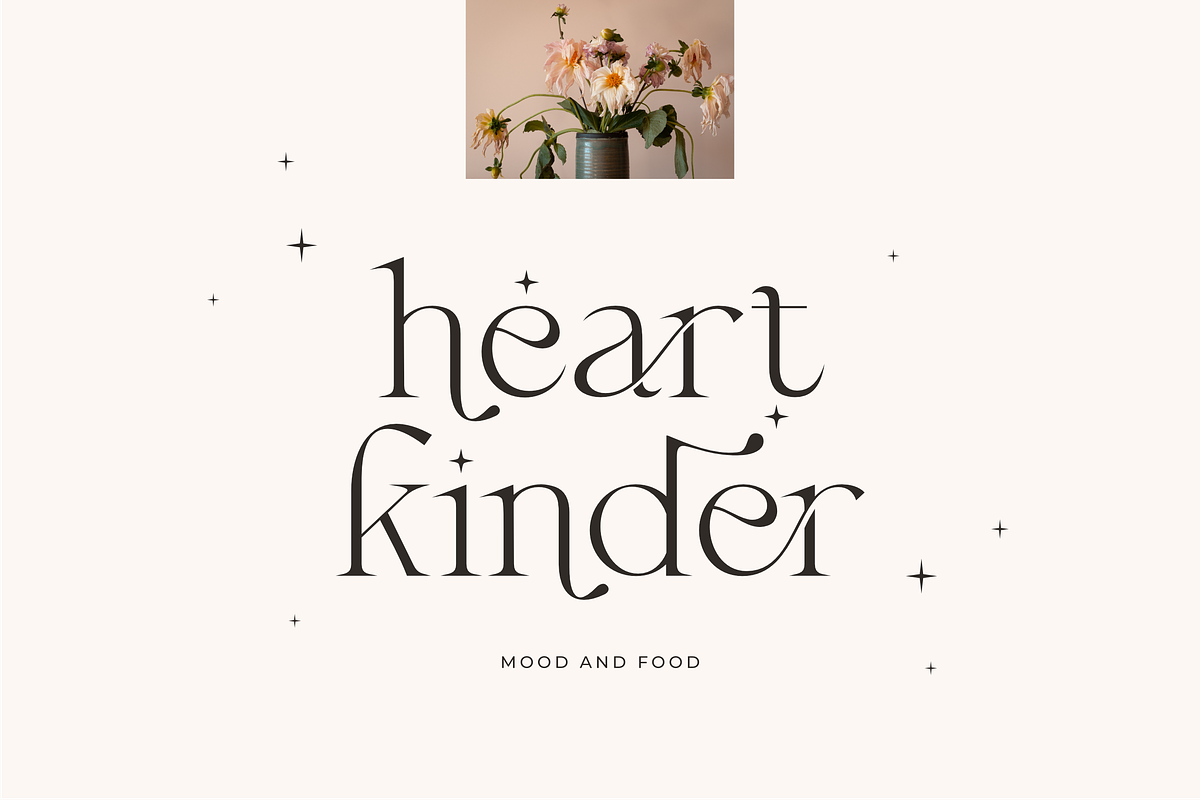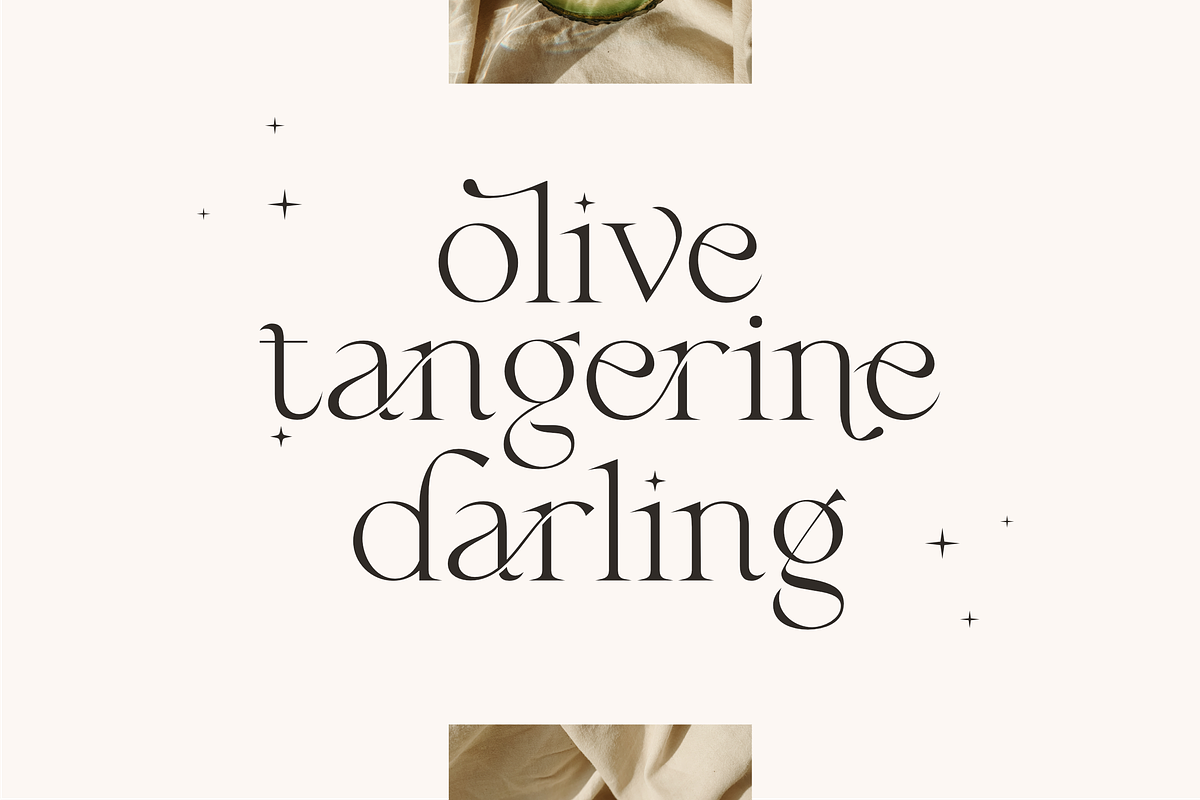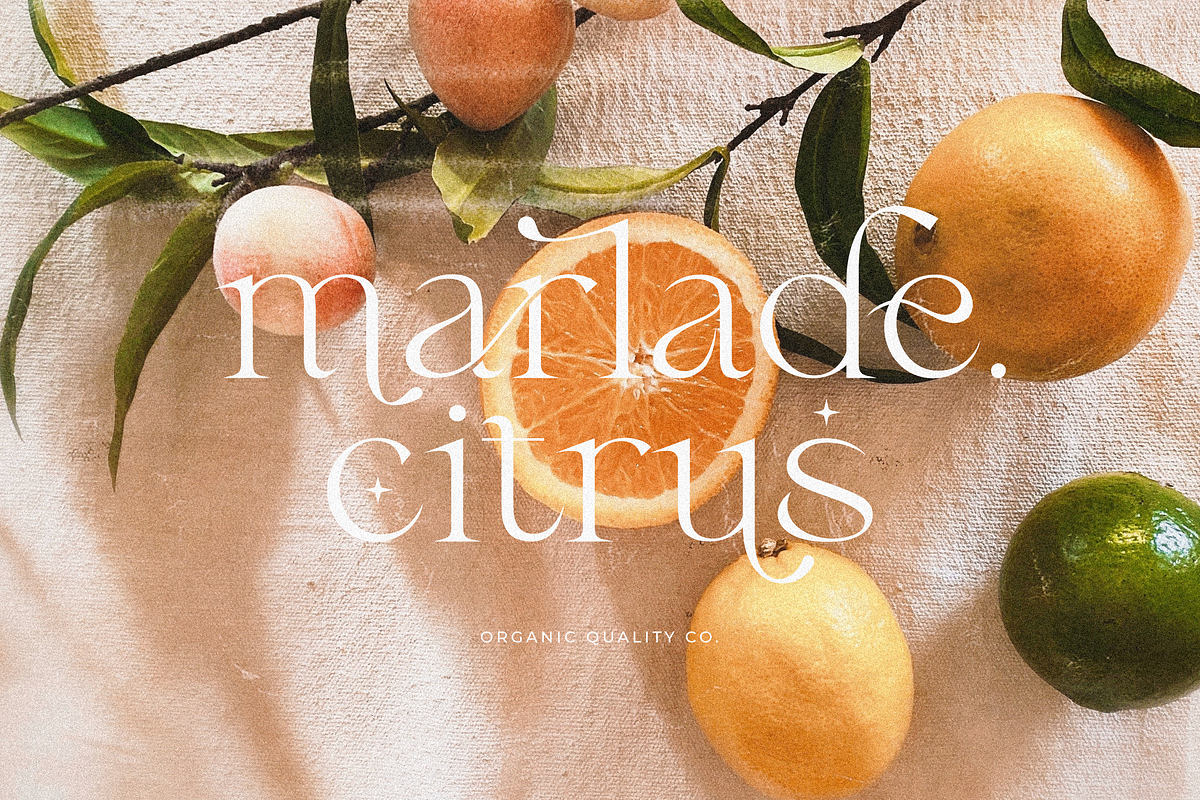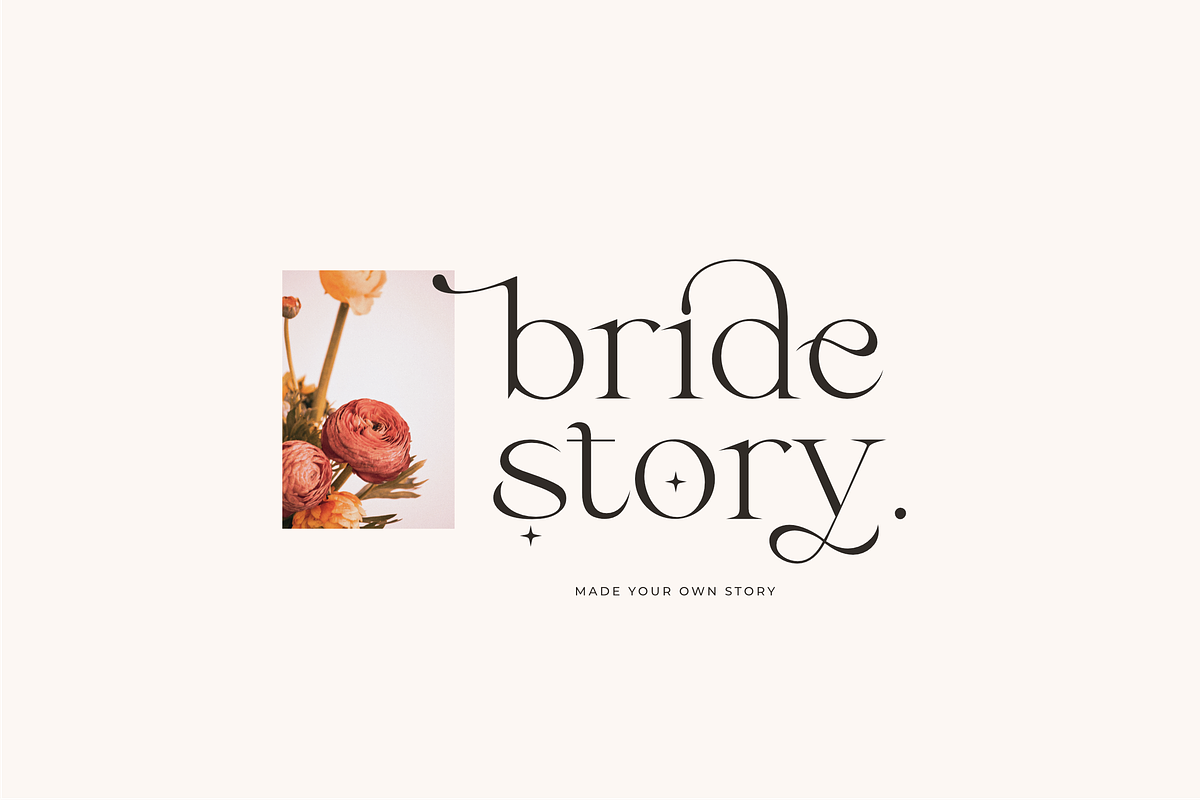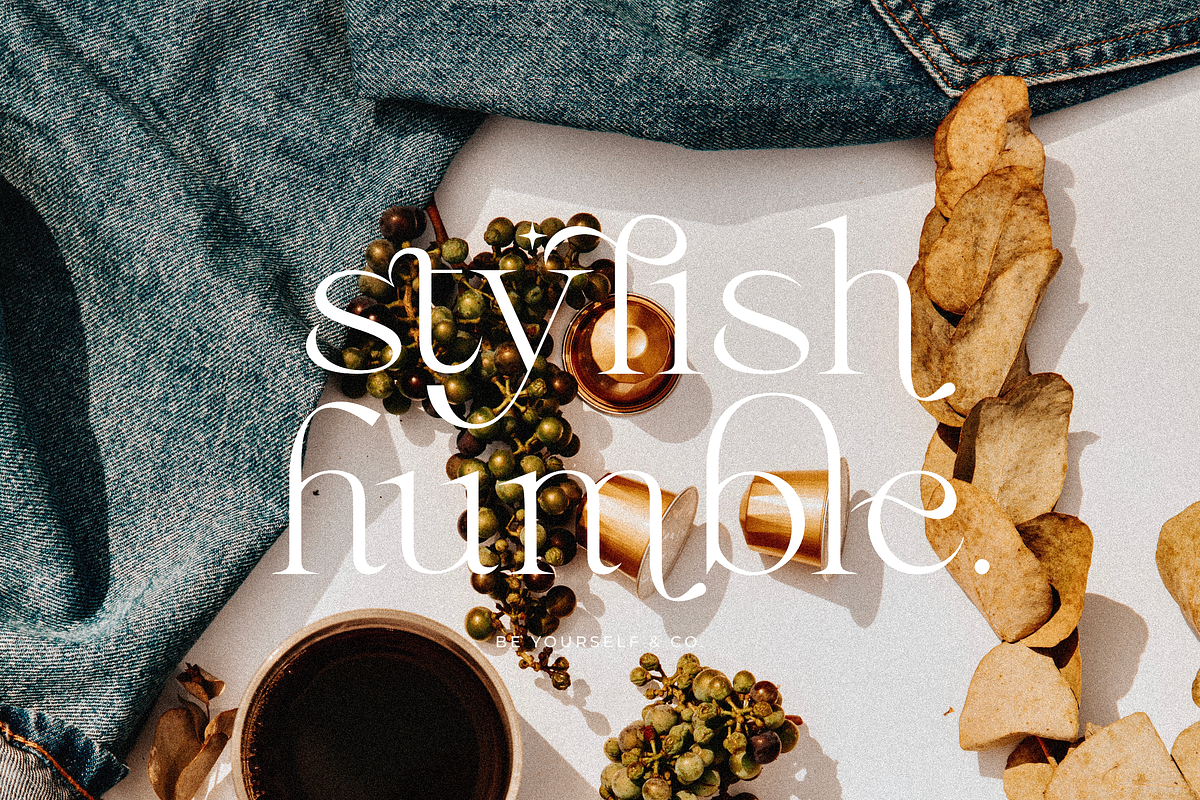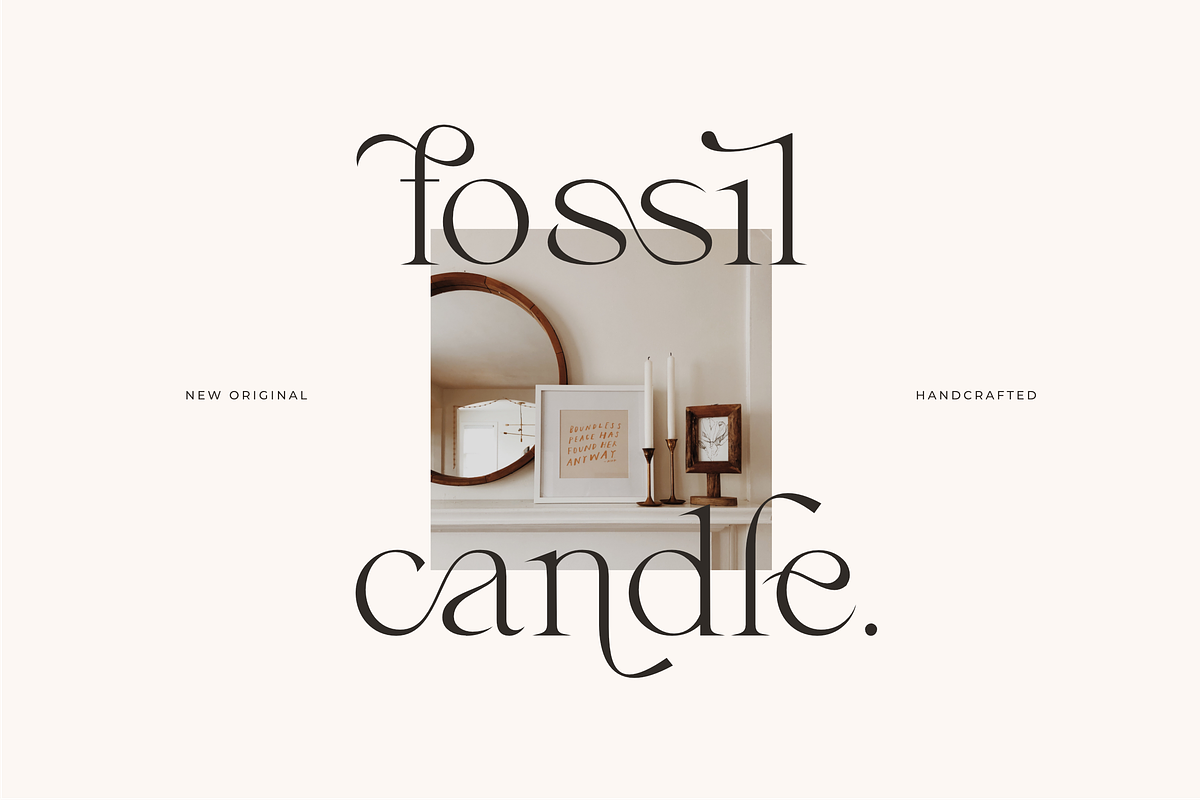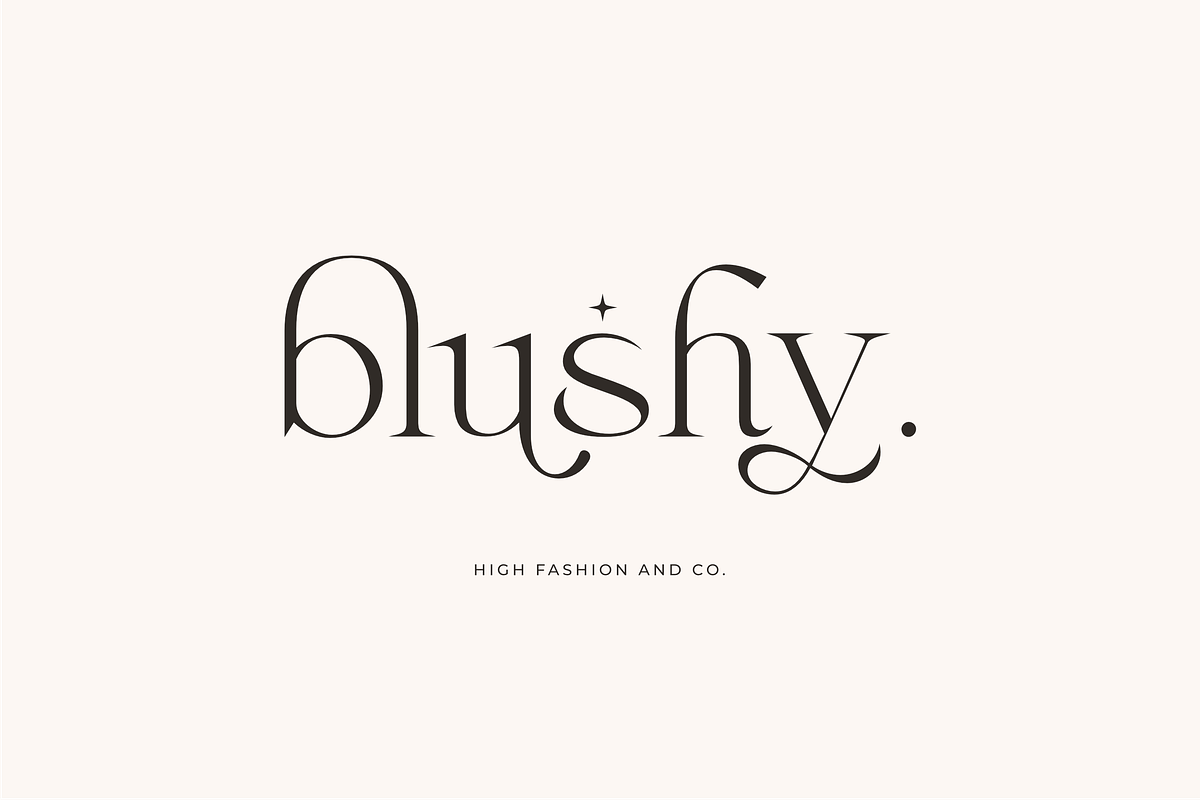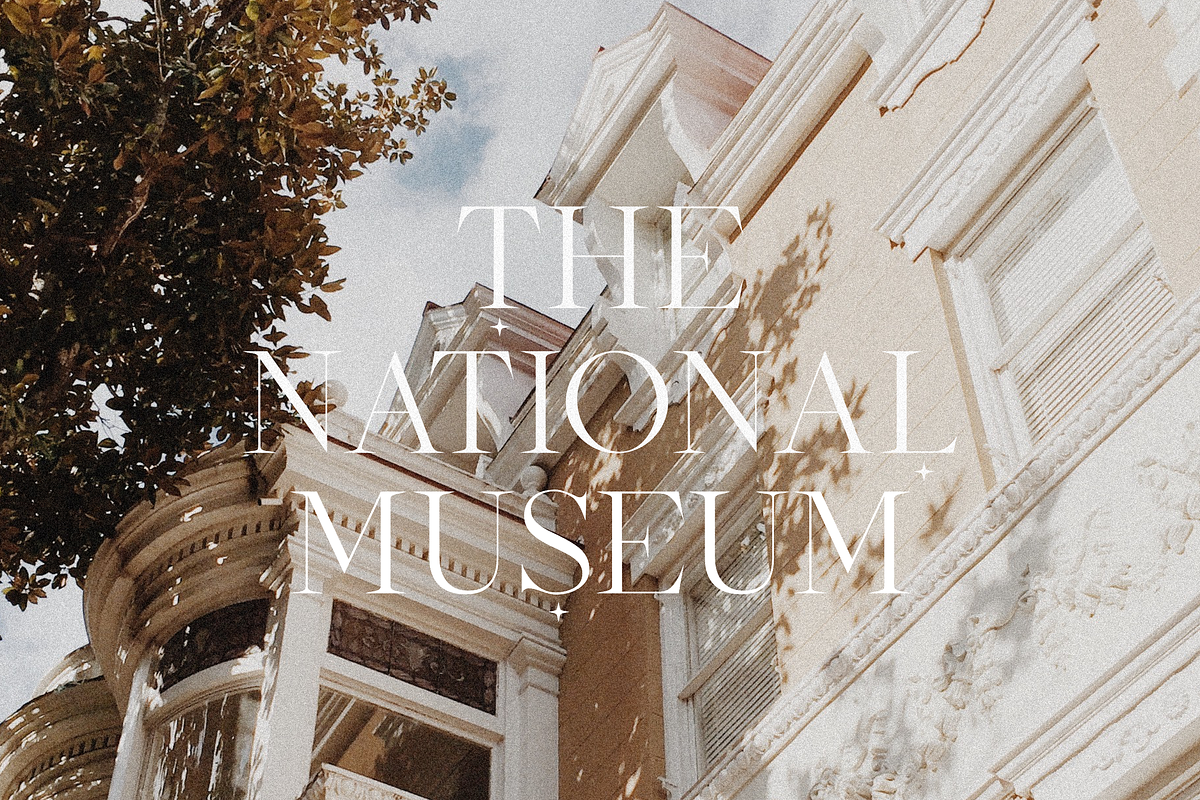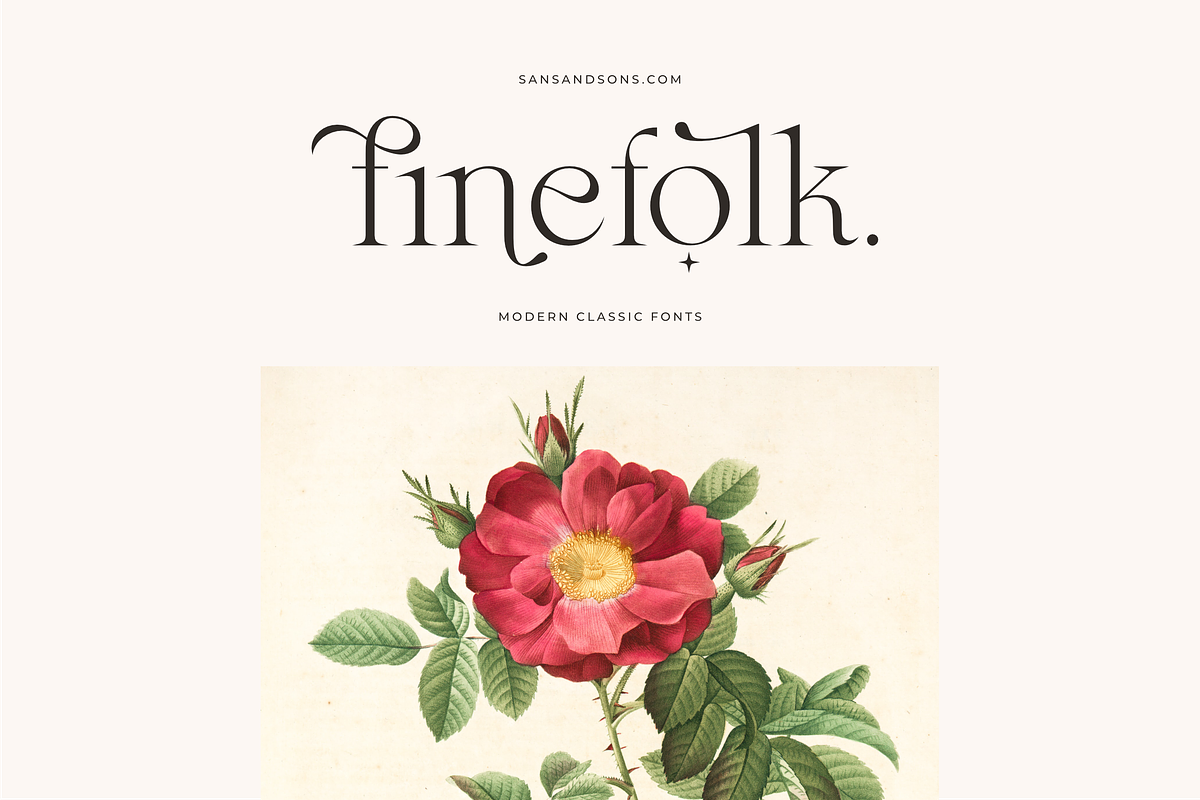
Fragile - Modern Serif
Fragile - Modern Ligature Font by Sans and Sons
introducing our new "Fragile" Modern Ligature with Elegant Style this is perfect for branding, logos, invitation, masterheads and more.
Fragile Features :